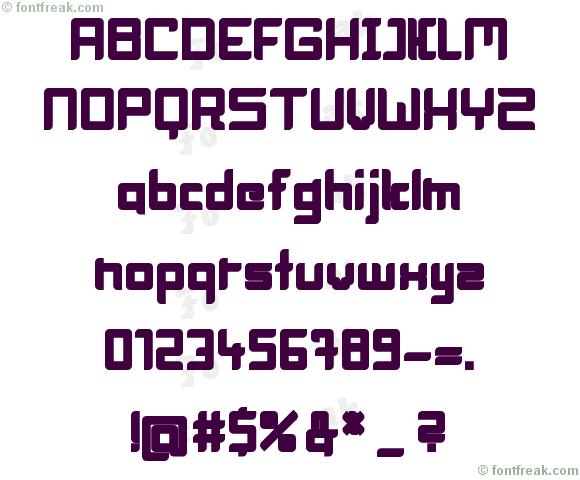
BlockHead Bold
BlockHead Fat
BlockHead
About BlockHead Bold
BlockHead Bold, designed by Manuel Viergutz, is a striking display font that falls into the category of bold sans-serif typefaces. Its robust and chunky letterforms exude a sense of strength and presence, making it an excellent choice for any project that demands attention. The font features a uniform stroke weight, which contributes to its solid appearance, while the careful spacing between characters ensures clarity and readability, even at larger sizes. With its clean lines and minimal decorative elements, BlockHead Bold maintains a modern aesthetic that can complement a variety of design styles.
This font is particularly well-suited for use in vibrant and impactful applications. It shines in contexts such as movie posters, where a bold statement is essential, as well as in restaurant menus that aim to catch the eye of diners. Additionally, it can elevate branding materials for small businesses looking to make a memorable impression. Graphic designers and content creators will find BlockHead Bold an invaluable asset for promotional materials, social media graphics, and even event flyers, thanks to its versatile nature.
What truly sets BlockHead Bold apart is its ability to blend modernity with a playful touch. Its bold, thick lines convey confidence while maintaining an approachable feel, making it the ideal choice for designs that need to convey both strength and friendliness. For those looking to enhance their creative projects, the BlockHead Bold font free download is an opportunity not to be missed.